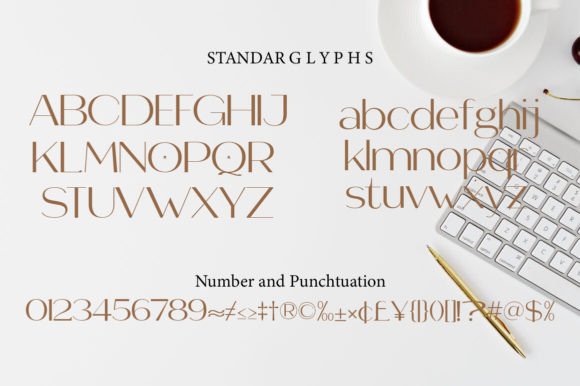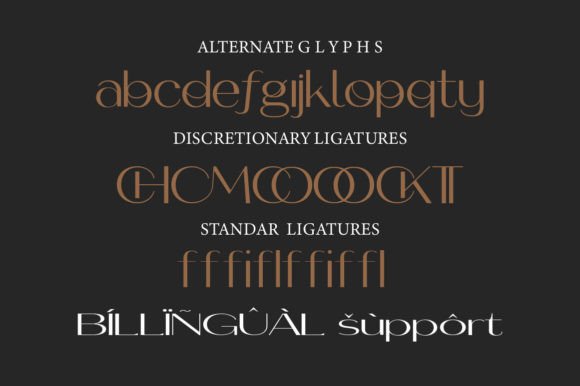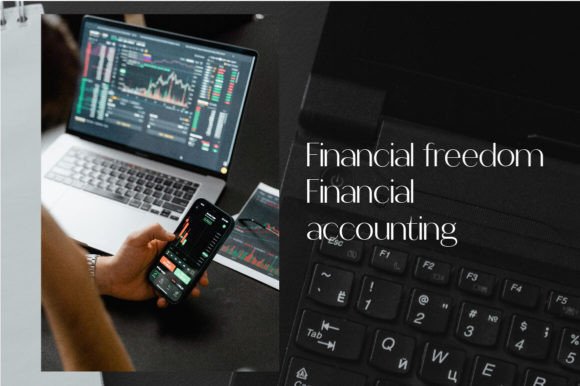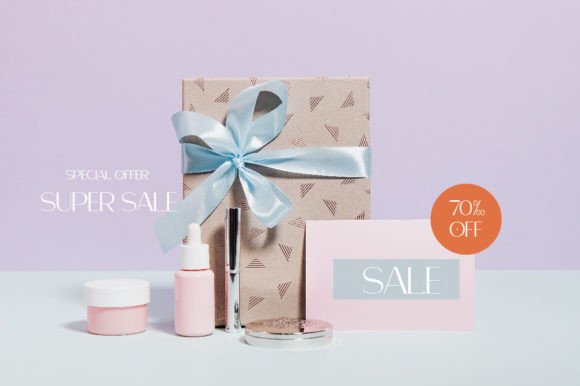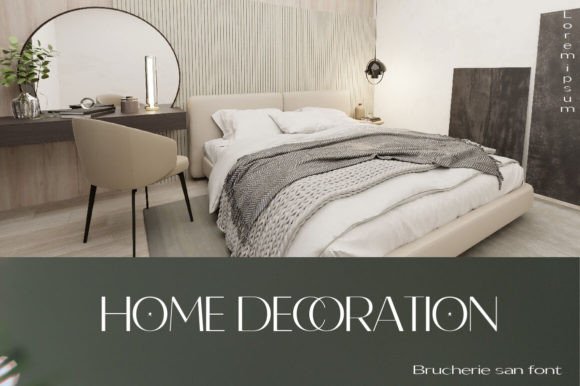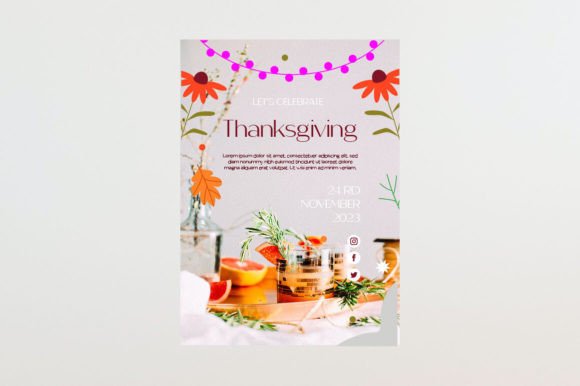
Introducing Brucherie Font: Elevate Your Designs with Elegance and Luxury
In the world of typography, a font can make or break a design. For designers and crafters looking to add a touch of sophistication and style to their projects, Brucherie Font is an excellent choice. This new elegant sans serif font is versatile, luxurious, and perfect for a wide range of applications. In this article, we’ll explore the features and benefits of Brucherie Font and how it can elevate your designs to the next level.
The Versatility of Brucherie Font
Brucherie Font is a highly versatile typeface that works well in both large and small sizes. Its clean and modern design makes it suitable for various projects, from branding and logo design to packaging, magazine titles, and website headers. Whether you’re working on a fashion-related branding project, editorial design, or digital design, Brucherie Font is an excellent choice.
Luxury and Style
Brucherie Font exudes luxury and style, making it perfect for designers who want to create high-end designs. Its elegant sans serif design is both modern and professional, adding a touch of sophistication to any project. With Brucherie Font, you can create stunning designs that showcase your creativity and attention to detail.
Features of Brucherie Font
Brucherie Font comes with a range of features that make it an excellent choice for designers. Some of its key features include:
- Standard glyphs: The font includes standard glyphs, ensuring that you have access to a wide range of characters.
- Alternate glyphs and Ligatures: Brucherie Font also features alternate glyphs and ligatures, allowing you to add more creativity and variety to your designs.
- Numerals, symbols, and punctuation: The font includes numerals, symbols, and punctuation, making it a comprehensive and versatile typeface.
Use Cases for Brucherie Font
Brucherie Font is suitable for a wide range of projects, including:
- Branding projects: Create stunning brand identities with Brucherie Font.
- Logo design: Design memorable logos that showcase your brand’s personality.
- Clothing branding: Add a touch of luxury to your clothing brand with Brucherie Font.
- Packaging design: Create eye-catching packaging designs that stand out on store shelves.
- Magazine titles and headlines: Use Brucherie Font to create stunning magazine titles and headlines.
- Website headers: Elevate your website’s design with Brucherie Font.
- Digital design: Use Brucherie Font in your digital designs, such as social media graphics and email marketing campaigns.
- T-shirts and apparel: Create stylish and modern apparel with Brucherie Font.
In conclusion, Brucherie Font is an excellent choice for designers and crafters looking to add a touch of luxury and style to their projects. Its versatility, elegance, and range of features make it suitable for a wide range of applications. With Brucherie Font, you can create modern and professional designs that showcase your creativity and attention to detail. Thank you to Gunaloecraft for creating this stunning font.